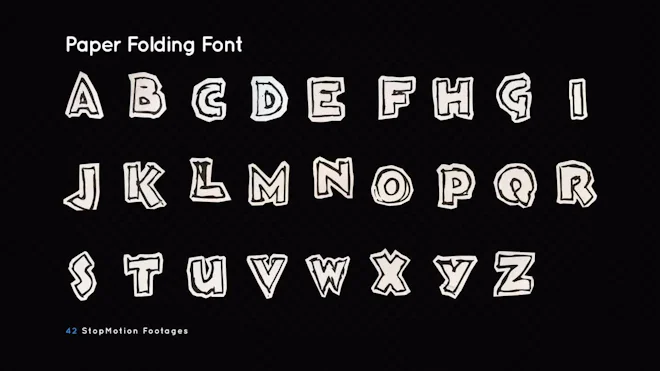
Paper Unfolding Font Pack contains 42 stop motion footage of the alphabet and numbers. Paper seems to unfold and the drawn fonts are revealed. The figures are manually animated and shot frame by frame. This 3840x2160 (4K) footage comes with alpha channel and will look excellent in any video project that relates to education and schooling. Incorporate this footage in your next project, intro, Youtube video, etc. Your audience will be blown away.